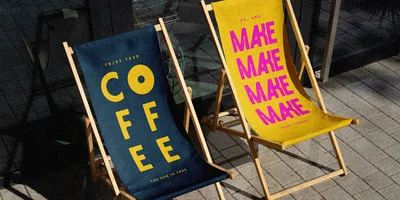
Collidge Font
Collidge Font is perfect for university branding, academic conference materials, scholarly publication covers, educational institution signage, student organization logos, graduation ceremony programs, research presentation slides, and intellectual property marketing.
Collidge Font is exciting because it captures the timeless dignity and intellectual excellence of higher education through its sophisticated character design that embodies the scholarly tradition and academic rigor of prestigious collegiate institutions. Its refined aesthetics and educational authenticity make it the perfect choice for brands that want to communicate knowledge, wisdom, and the transformative power of academic achievement.
The Collidge Font family includes multiple academic variations: Collidge Light, Collidge Regular, Collidge Medium, Collidge Bold, Collidge Italic, and Collidge Condensed, along with academic symbols and scholarly decorative elements, providing designers with comprehensive tools for creating authentic educational and intellectual brand experiences.
When exploring academic typography solutions, Collidge Font stands out as the premier choice for designers working on educational and scholarly projects that require genuine academic sophistication and intellectual credibility. This distinguished typeface embodies the essence of collegiate excellence while offering the technical precision that contemporary educational institutions require. The font's scholarly character and academic authenticity create immediate connections with audiences who value education and intellectual achievement.
Educational professionals consistently rely on Collidge Font for projects requiring authentic academic sophistication and scholarly appeal. Its expertly crafted letterforms feature collegiate influences that work exceptionally well in both intimate classroom materials and grand university campus displays. The font's ability to convey intellectual authority and educational excellence while maintaining perfect readability makes it invaluable for comprehensive brand identity systems in the higher education, research institution, and academic publishing sectors.
Whether you're developing university identities, creating academic conference materials, or designing scholarly publication designs, Collidge Font delivers the authentic academic character and intellectual appeal that resonates with audiences who appreciate educational excellence and scholarly achievement. Its educational heritage and sophisticated design ensure your projects honor academic traditions while maintaining contemporary professional standards that attract modern students, faculty, and educational stakeholders.